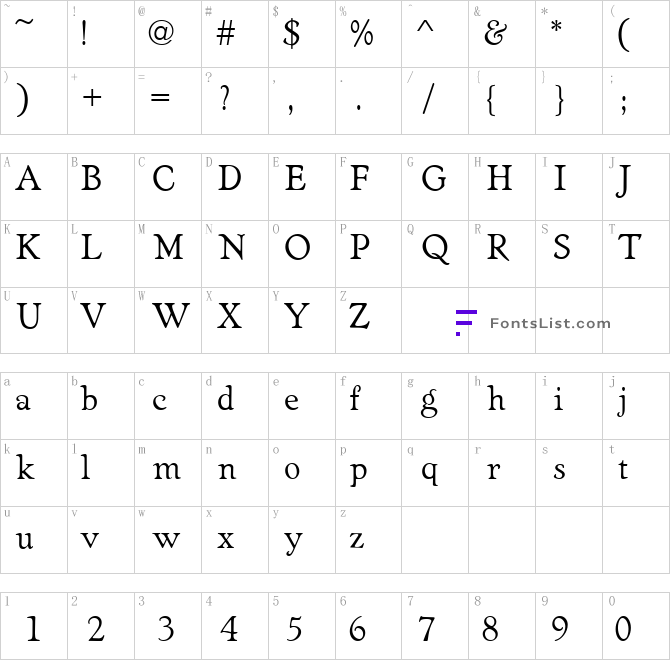
ArtcraftURWTReg.ttf is a very beautiful artistic font, ArtcraftURWTReg.ttf is widely used in the design and printing of various books and pictures,ArtcraftURWTReg.ttf has a strong visual impact,ArtcraftURWTReg.ttf is a commonly used font in newspapers, magazines and books, and is used in posters, e-commerce Poster design, store design, logo design, font design and other fields.ArtcraftURWTReg.